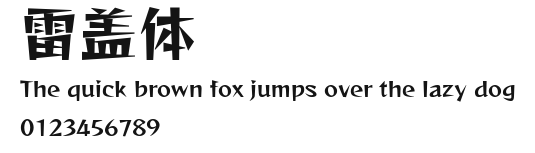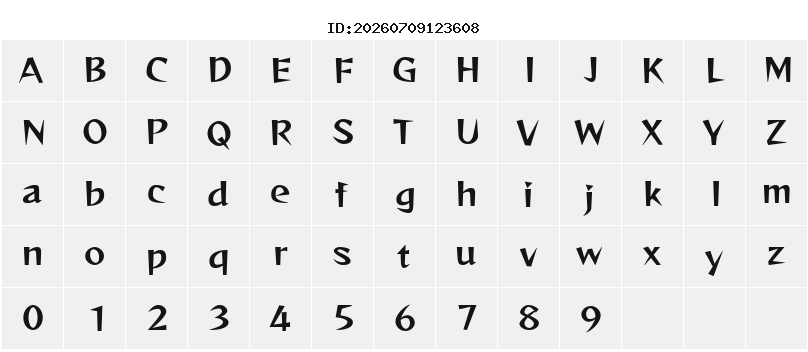
雷盖体 Preview
• Font Name: 雷盖体
• Font ID: 雷盖体
• Full Font Name: 雷盖体
• PostScript Name: 雷盖体
• Designer: Fontworks Inc.
• Manufacturer: Fontworks Inc.
About 雷盖体.ttf
雷盖体.ttf is a modern, elegant sans-serif font designed for ultimate readability and visual harmony. Perfect for branding, headlines, web design, and print materials.